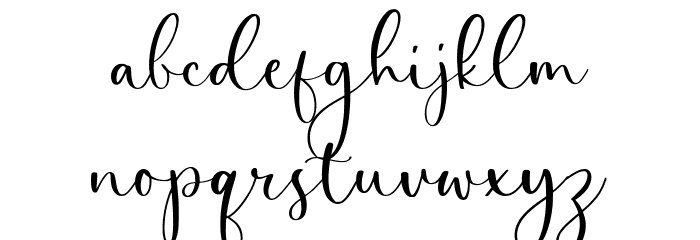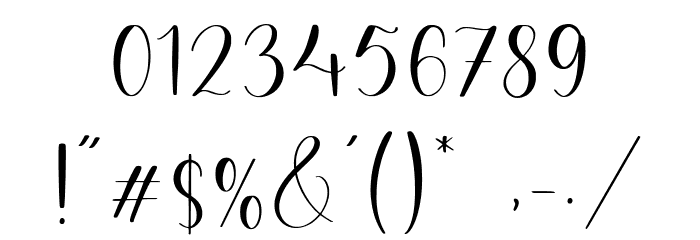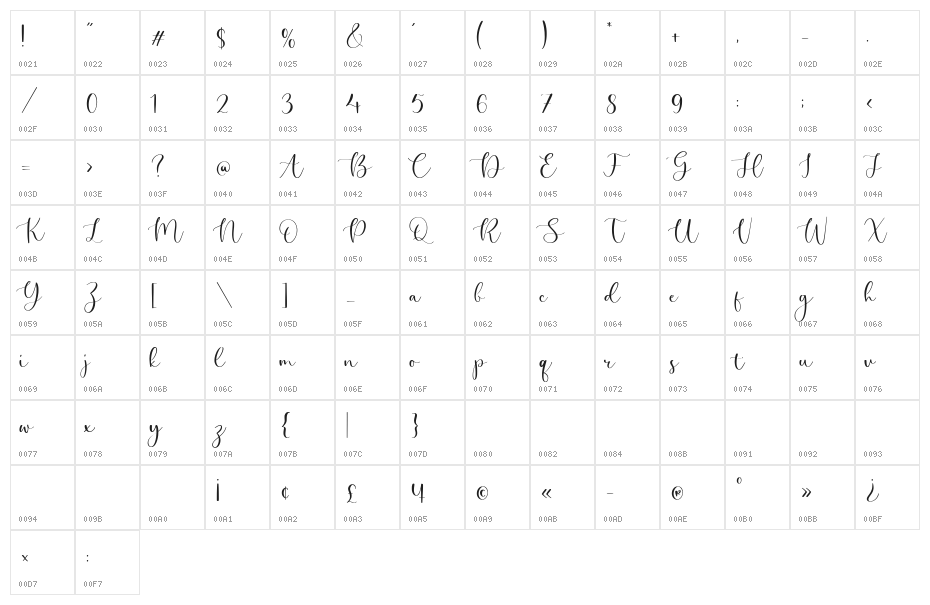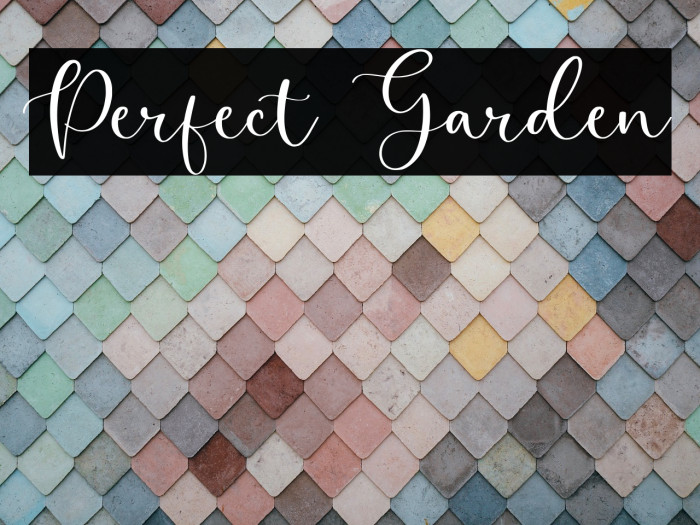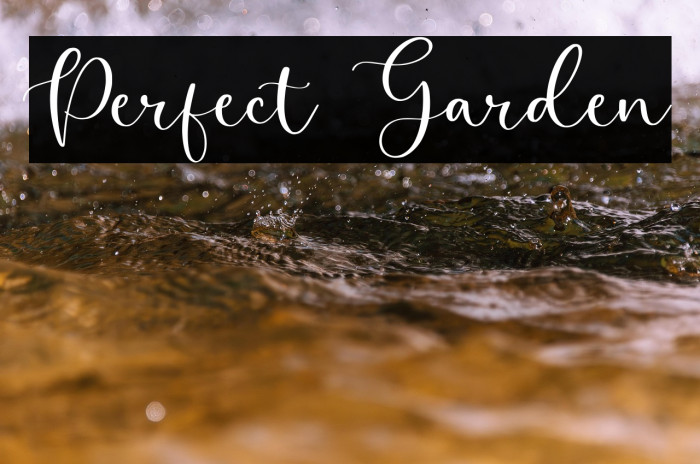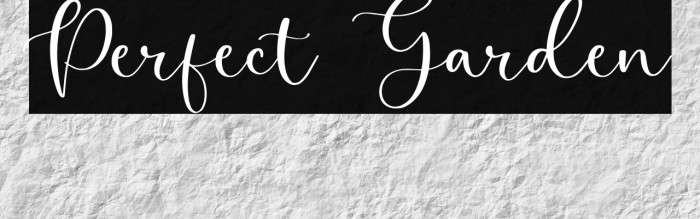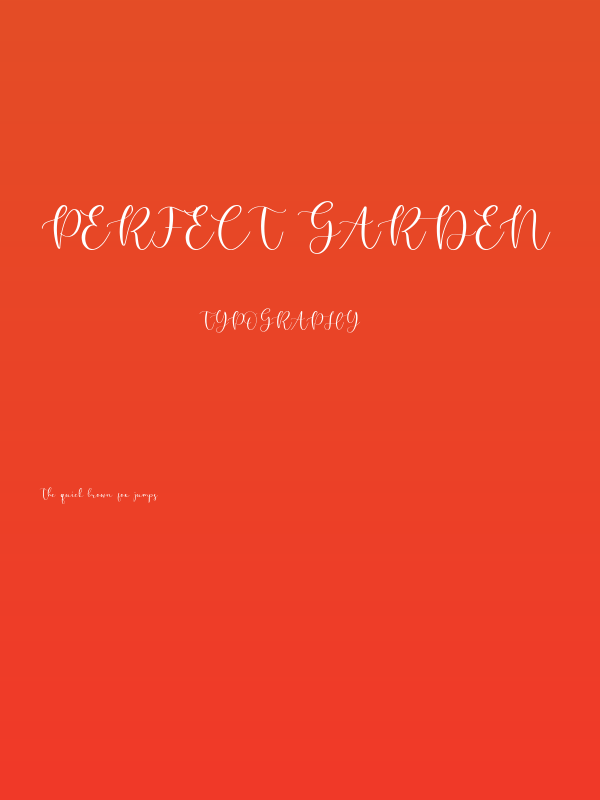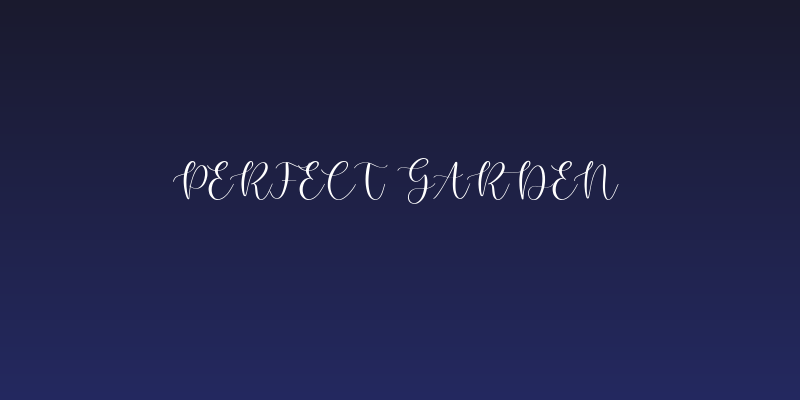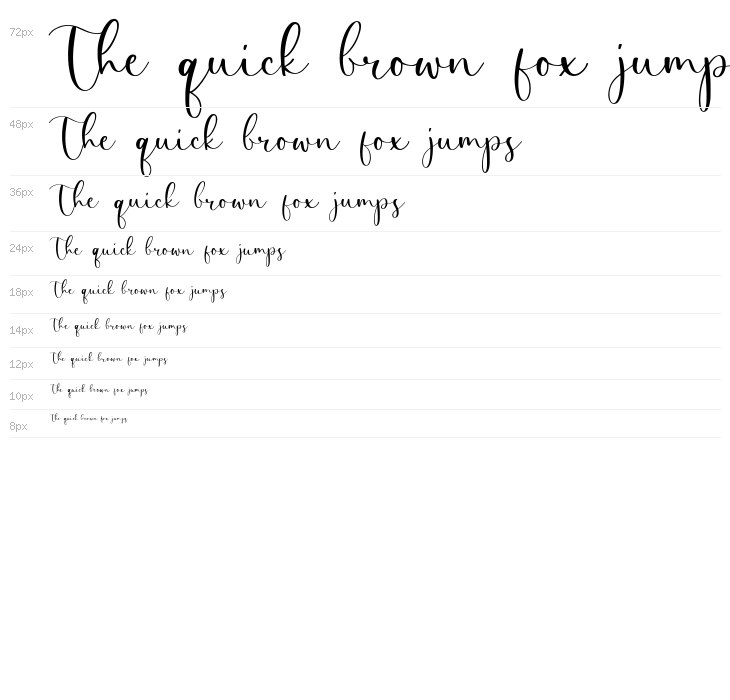
Perfect Garden Font
This elegant script font features flowing, cursive letters with a graceful, handwritten style. The uppercase characters are ornate and slightly larger than the lowercase, which are more delicate and fluid. The numbers maintain the same elegant style, making them suitable for a variety of uses. Special characters are included, each designed with the same attention to detail and style. The font's overall appearance is sophisticated and artistic, making it ideal for creative projects that require a personal touch.
A graceful, cursive script font with an elegant, handwritten style.
- Proposed Projects: Ideal for wedding invitations, greeting cards, branding, and other creative projects that require a personal and elegant touch.
- Use Case: Logos, Invitations, Decorative text